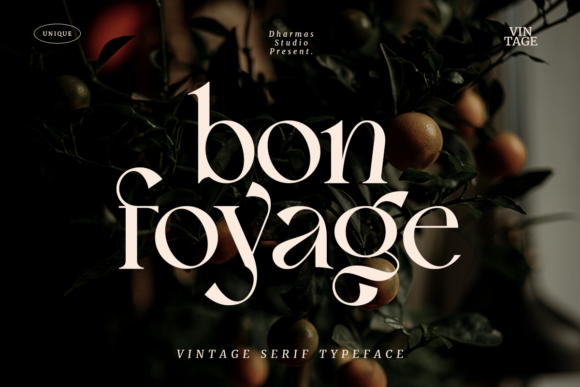
In the vast expanse of digital typography, Bon Foyage Font emerges as a radiant luminary, a serif font of unparalleled grace and distinction. Its meticulously crafted curves and refined edges evoke a sense of timeless elegance, imbuing your designs with an air of sophistication that captivates the senses.
Discover the boundless possibilities of Bon Foyage, a font family that transforms your creative vision into a tangible masterpiece. With its inherent charm and versatility, Bon Foyage gracefully adorns book covers, captivating titles, and enchanting logos, leaving an indelible mark on the hearts and minds of your audience.
Embrace the allure of Bon Foyage, a font that weaves a tapestry of emotions, stirring the depths of human connection. Its intricate details and expressive glyphs breathe life into your words, inviting readers on a journey of discovery, intrigue, and profound resonance.
Unleash the power of Bon Foyage, a font that transcends the boundaries of ordinary expression. Its PUA encoding grants you effortless access to a treasure trove of glyphs and swashes, empowering you to unleash your creativity and craft designs that shimmer with brilliance and originality.